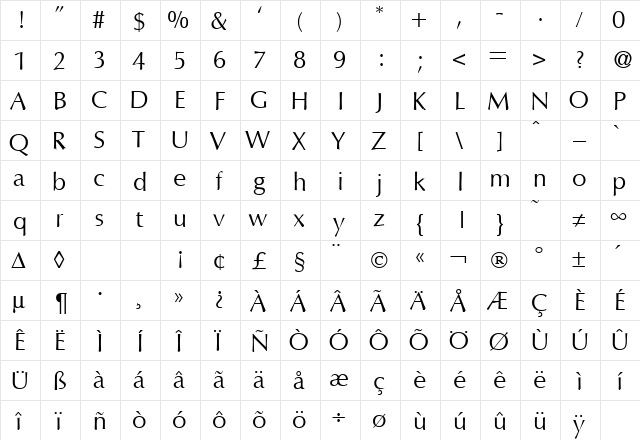
OpusTwo Regular
Design Context for OpusTwo Typeface
OpusTwo takes a measured approach to typography — its balanced proportions and neutral character make it a reliable workhorse for both digital and print work.